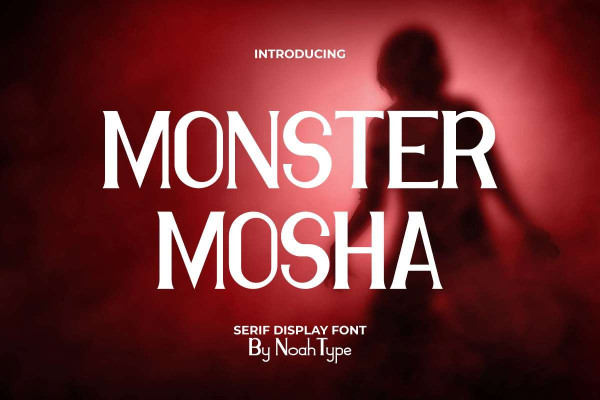
Monster Mosha Font
Monster Mosha Font is a unique serif display font designed by NoahType. This font has two modern styles: Regular and Italic that will make your designs looks mysterious! It would be perfect choice for many industries, such as accessories, advertisement, café, game, fashion, furniture, handicrafts, movie, printing, publishing, restaurant, sport, and more!
Monster Mosha Font include full set of Uppercase and Lowercase Basic Characters, Numerals and Punctuation. This font would be perfect for designs that need a mysterious look that can send chills down your spine, such as business card, custom design, catalog, label, magazine poster, product packaging, screen printing, signage, stationery, sticker, title, website, etc.